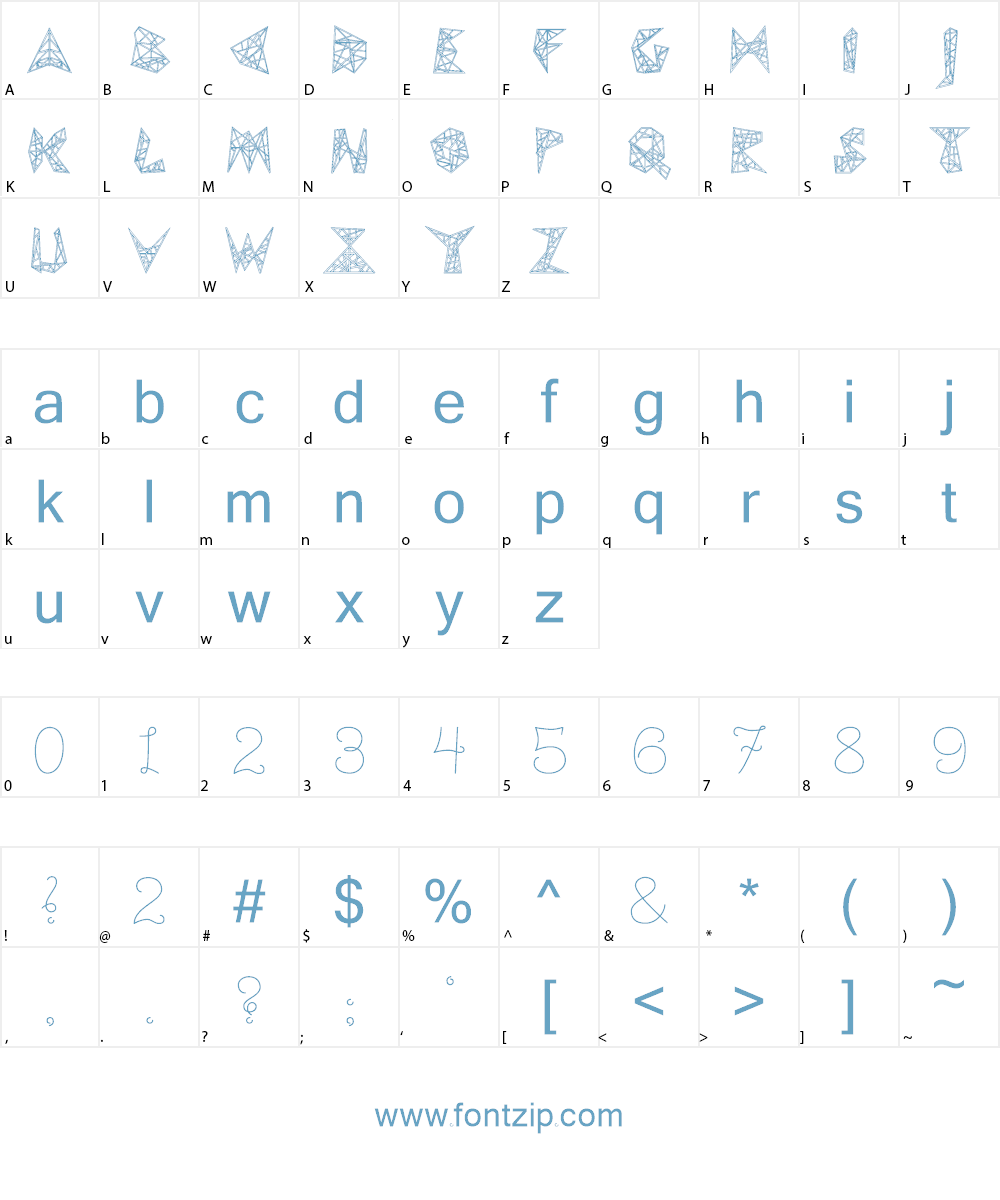
A typeface inspired by the electricity pylons crossing the countryside. Comes with a narrow and wide spaced version to mimic the effect of power pylon placement.